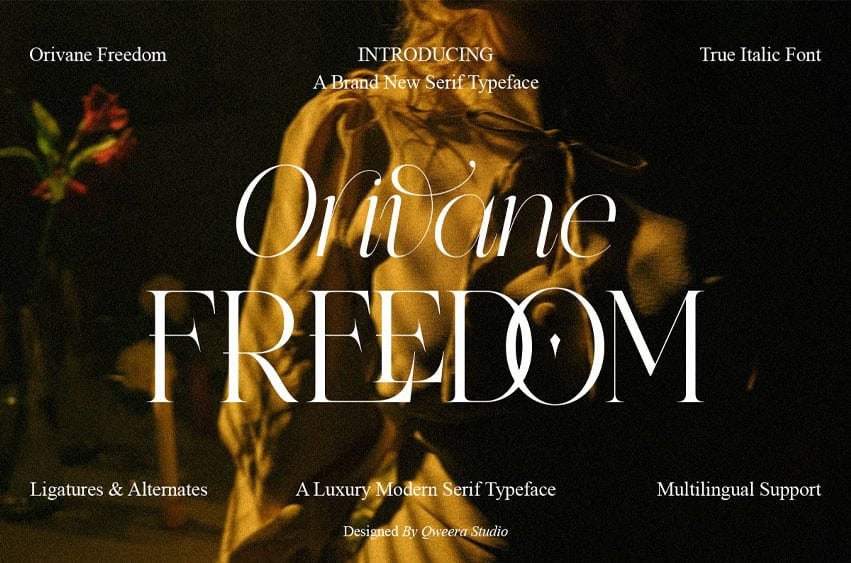
Orivane Freedom Font is a luxury modern serif font crafted for refined branding, editorial layouts, fashion visuals, premium packaging, and timeless visual identity. With its high-contrast serif structure, elegant uppercase presence, delicate true italic style, stylish alternates, and graceful ligature details, Orivane Freedom brings a poetic, sophisticated, and expressive tone to modern design projects.
Its elegant display character works beautifully for luxury logos, fashion branding, editorial headlines, magazine layouts, perfume packaging, beauty labels, boutique identity, wedding stationery, product packaging, artful posters, social media visuals, and premium brand presentations. Orivane Freedom includes uppercase and lowercase characters, stylish alternates, ligatures, multilingual support, professional kerning, Regular and Italic styles, plus OTF, TTF, WOFF, and WOFF2 formats for polished print and digital use.
Bring refined emotion, modern luxury, and timeless editorial beauty into your next branding, packaging, or visual identity project with Orivane Freedom.
• Luxury modern serif style
• Complete uppercase and lowercase characters
• Stylish alternates and ligatures
• Multilingual character support
• Professional kerning for polished typography
• Regular and true Italic font styles
• Refined editorial look for luxury, fashion, beauty, and premium branding